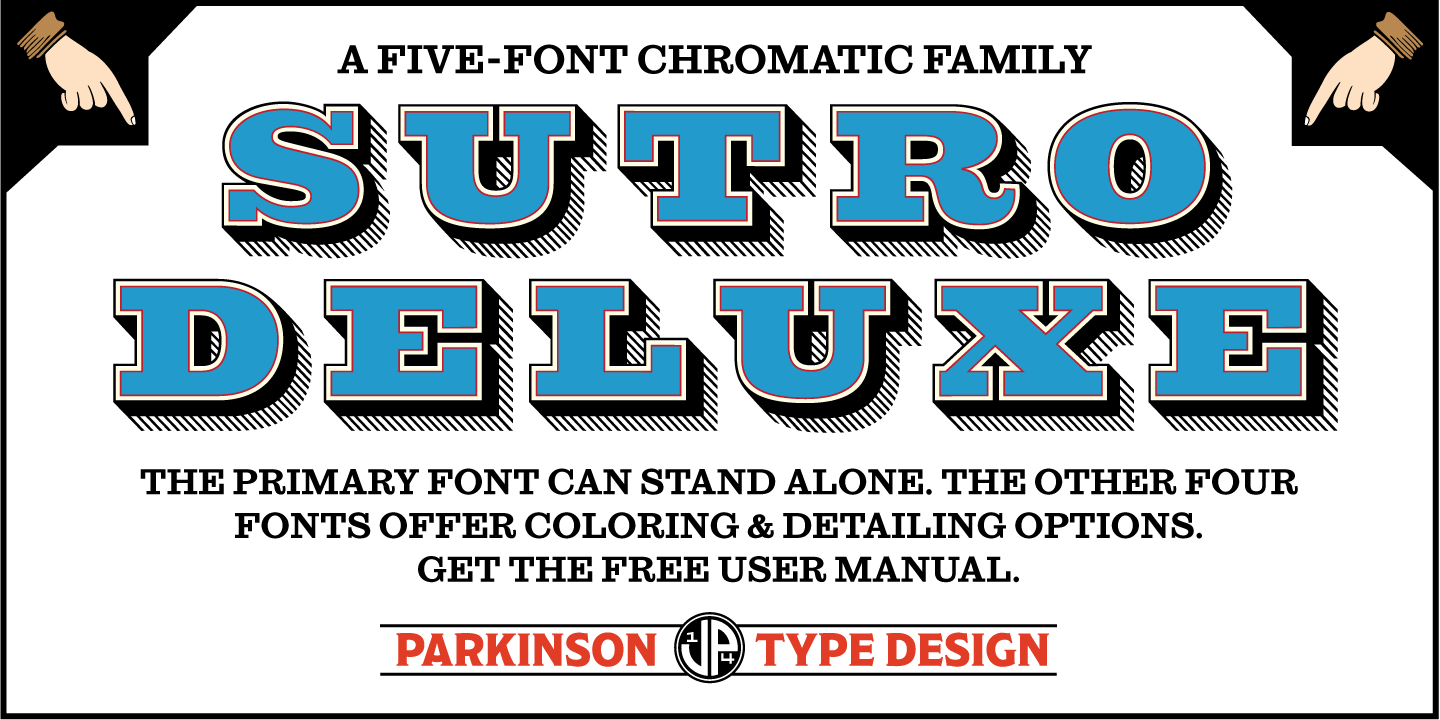
Sutro Deluxe Font excels in premium design applications including luxury brand identity, high-end product packaging, boutique hotel branding, fine dining restaurant menus, elegant wedding invitations, upscale real estate marketing, fashion magazine headlines, and sophisticated advertising campaigns that demand refined typography with distinctive character.
What makes Sutro Deluxe Font exciting is its extraordinary combination of vintage charm and contemporary sophistication. This remarkable typeface showcases meticulously crafted letterforms that blend classic elegance with modern refinement, creating a unique aesthetic that commands attention while maintaining exceptional readability. The font's distinctive personality and luxurious appeal make it perfect for brands seeking to establish premium positioning and communicate exclusivity to discerning audiences.
Sutro Deluxe Font family encompasses a complete collection of weights and stylistic variations designed for comprehensive brand communication. The family typically includes light, regular, medium, bold, and black weights, complemented by italic versions, decorative alternates, stylistic ligatures, and an extensive character set supporting multiple languages and special symbols.
Discerning designers consistently choose Sutro Deluxe Font Free Download for projects requiring typography that embodies sophistication and premium quality. This versatile typeface adapts beautifully across various media, from digital platforms to print materials, delivering consistent brand messaging with unmistakable elegance. The font's carefully balanced proportions ensure optimal performance in both display and text applications. Creative professionals worldwide rely on this distinguished typeface to communicate brand values of quality, craftsmanship, and exclusivity. Elevate your design projects with the timeless appeal of Sutro Deluxe Font and create memorable brand experiences that resonate with audiences who appreciate refined aesthetics and superior design quality.